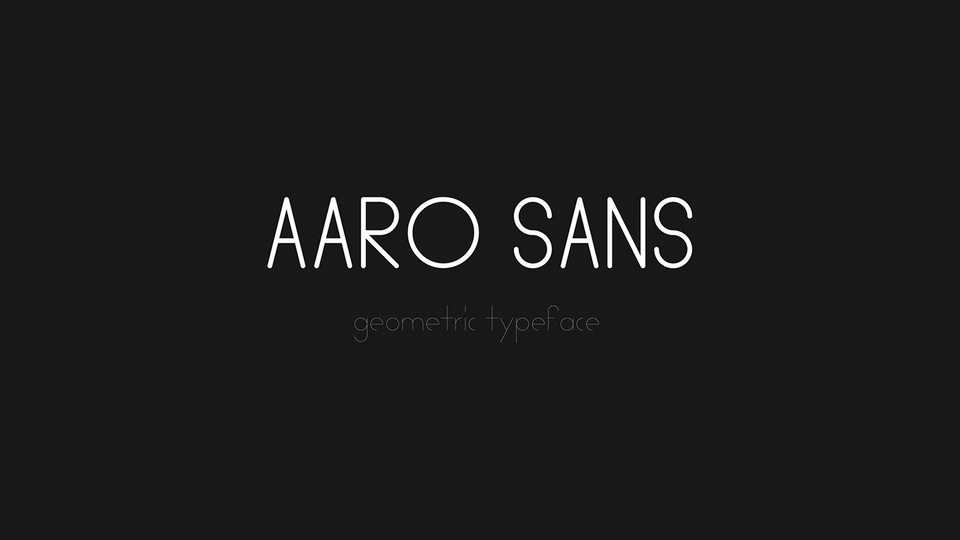
Download Aaro Sans typeface, a geometric font family in two weights designed for dramatic display. Aaro Sans font works best for headlines as well as for text, suitable for magazines, social networks, logos and branding and other artworks.
Designer: Aaron Troglia